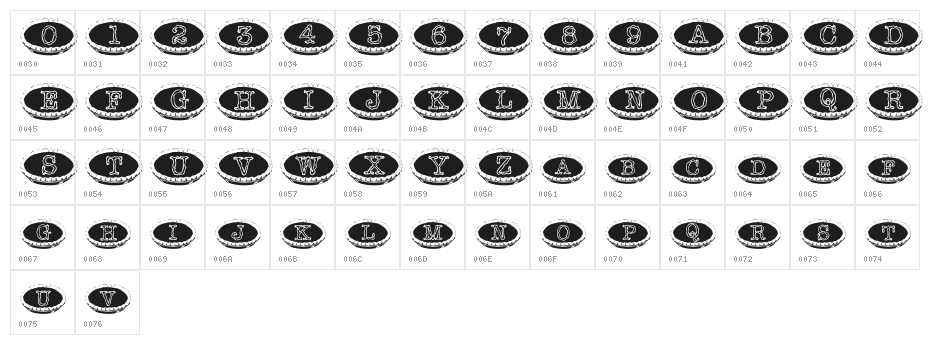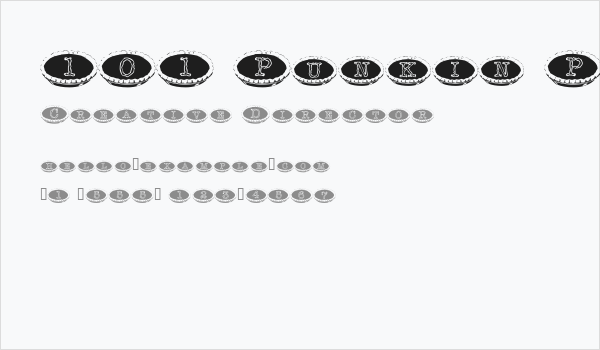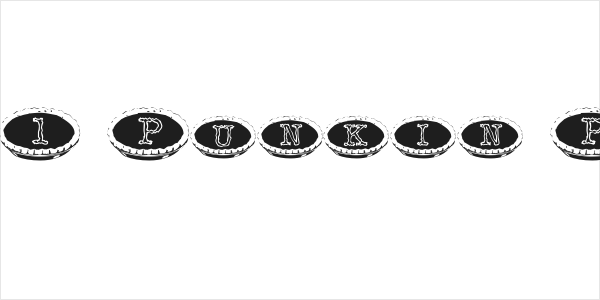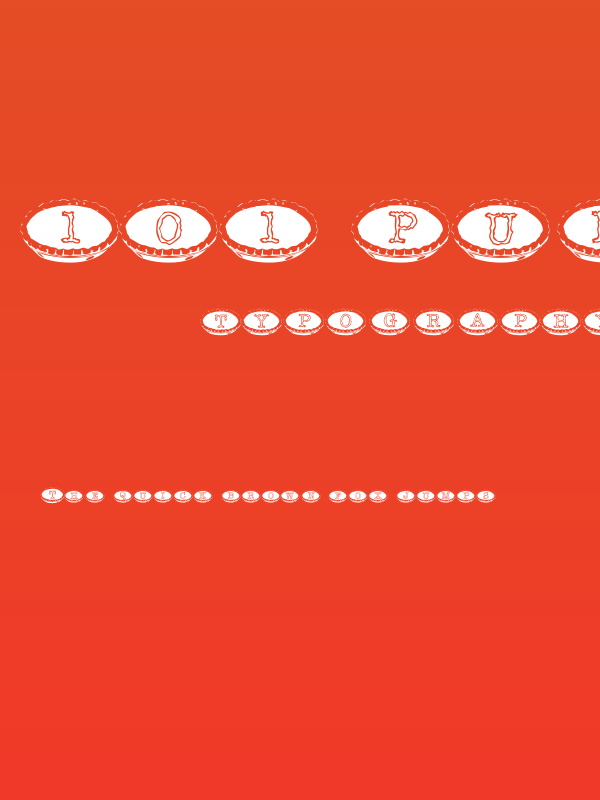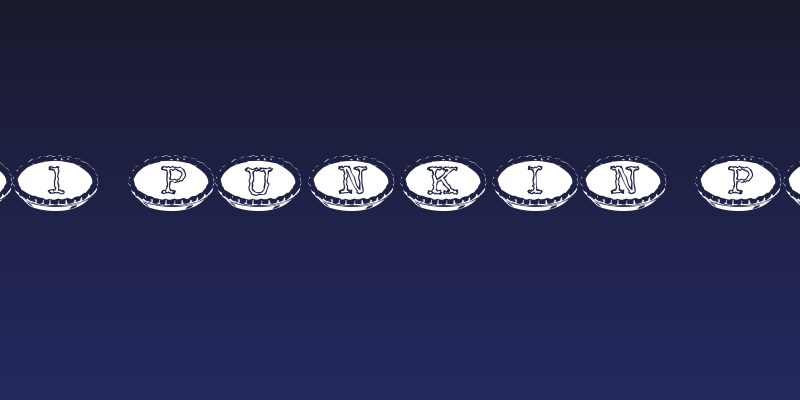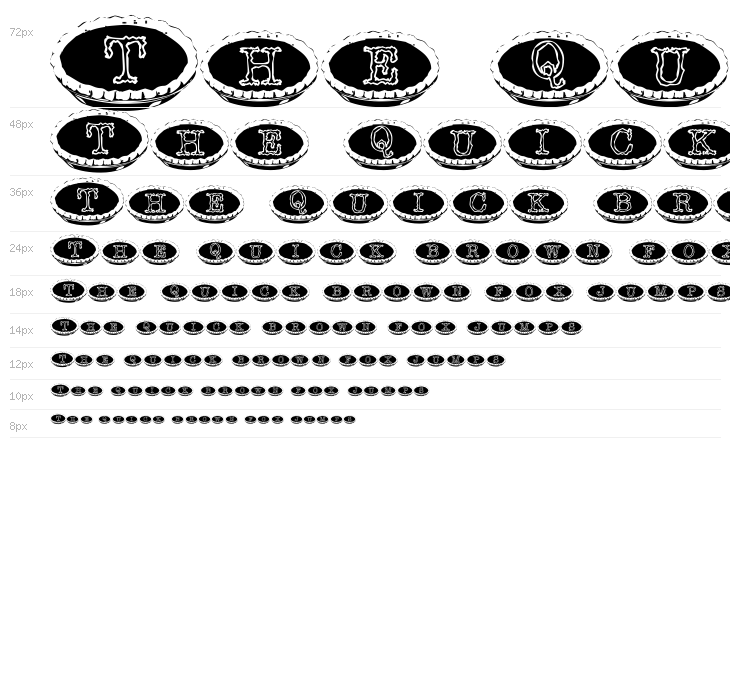
101 Punkin Pie Font
✎ Typewriter
| Stile generale | Vintage, Decorative |
| Progetti proposti | Ideal for creative projects such as posters, invitations, or branding that requires a playful and vintage touch. |